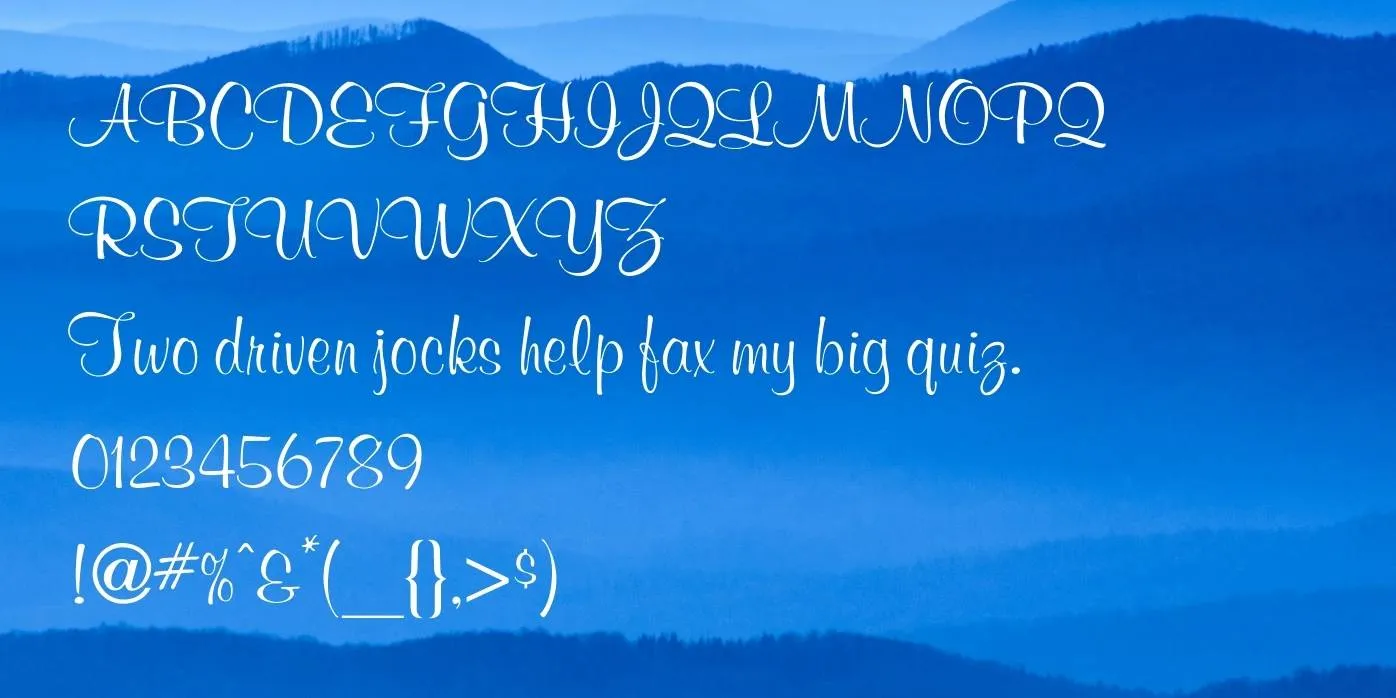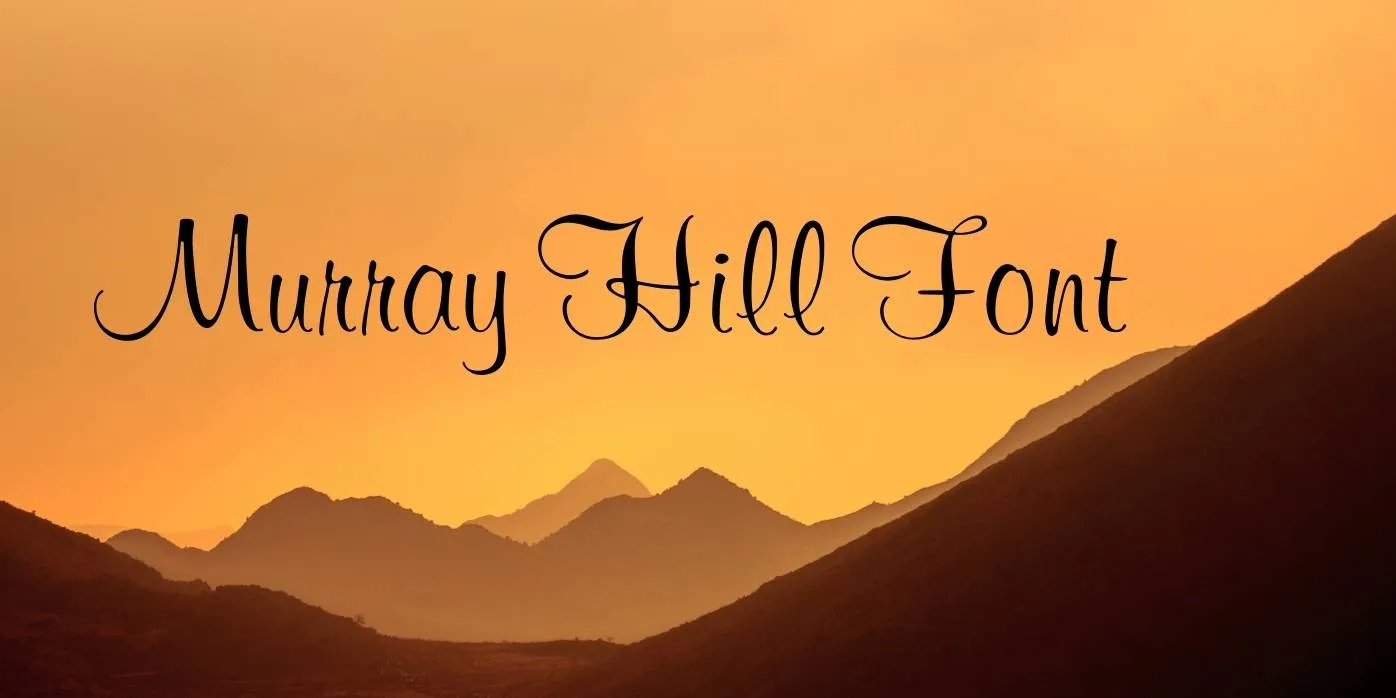
Murray Hill Font
We are now introducing a very famous font named Murray hill font. This font belongs to the script typeface. This font family was designed by Emil J. Klumpp.
This font is available in different styles. It is a flexible font for a long period. Designers used it for different purposes like logos, posters, advertisements, and many more. It is a perfect font family for designing logos of toasters.
Murray Hill font is available in TTF format. This typeface has available in different 250 calligraphy characters. This typeface is used everywhere because of its popularity. It is usually used for poster designs.
Further, this font family is used in the film industry, TV shows, games, and many more. This typeface is famous for its neatness and effectiveness. Different companies used this stunning font for product titles and headings. This font family can also be used for office work.
This typeface has advanced features and modern styles. It became popular day after day. It is a very elegant typeface. That is the reason for its too much use by different designers and companies.